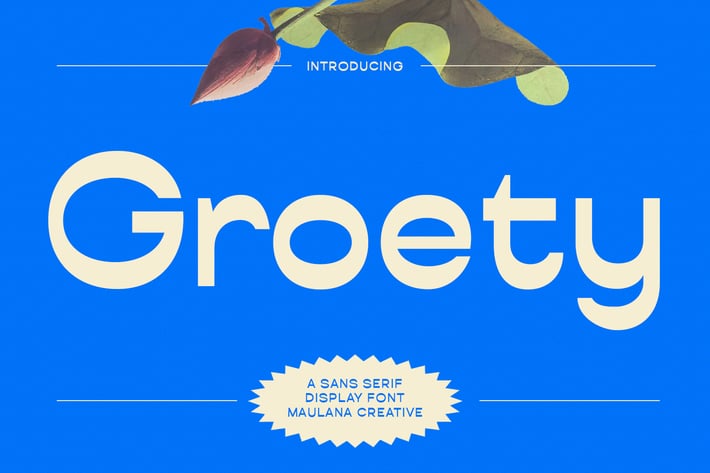
Groety Sans Display Font
Groety is a modern sans display font. With semi bold reverse contrast stroke, fun character with a bit of ligatures and alternates. To give you an extra creative work. Groety font support multilingual more than 100+ language. This font is good for logo design, Social media, Movie Titles, Books Titles, a short text even a long text letter and good for your secondary text font with sans or serif. Make a stunning work with Groety font.